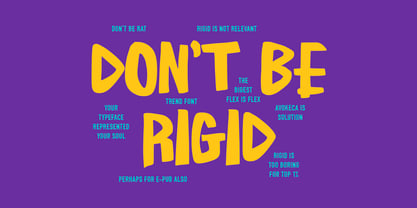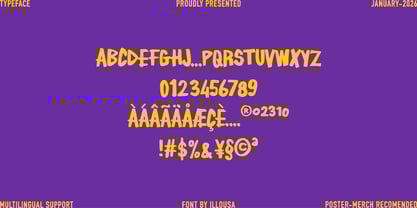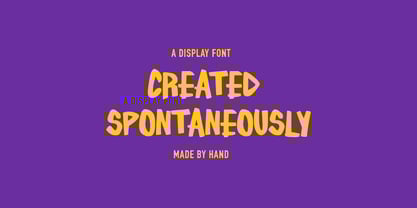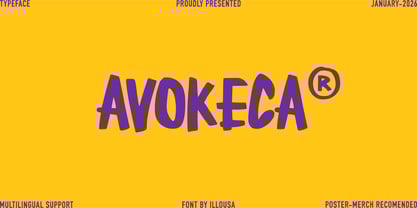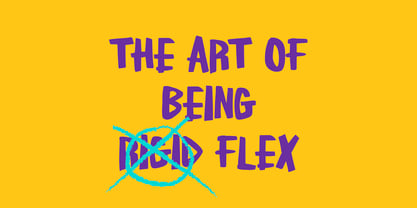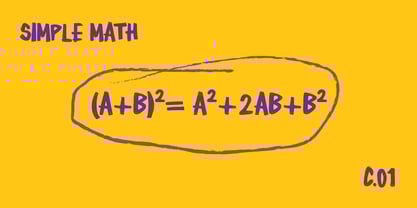
SCC Avokeca
von Illousa Supply Co
Die Schriftfamilie SCC Avokeca wurde von Ilham Afrora entworfen und von Illousa Supply Co veröffentlicht. SCC Avokeca enthält 1 Stile. Mehr über diese Familie
Don't be rigid—be bold with AVOKECA! This playful, hand-crafted display font is your solution for designs that need a soul. Perfect for standout merch, posters, and urban branding. With its unique rhythm and multilingual support, AVOKECA turns boring layouts into art. Grab it and flex your creativity! Vibe: Fun, Bold, and Unapologetic. Best For: Posters, Streetwear, Branding, and Social Media. Support: Multilingual characters included
Designer: Ilham Afrora
Foundry: Illousa Supply Co